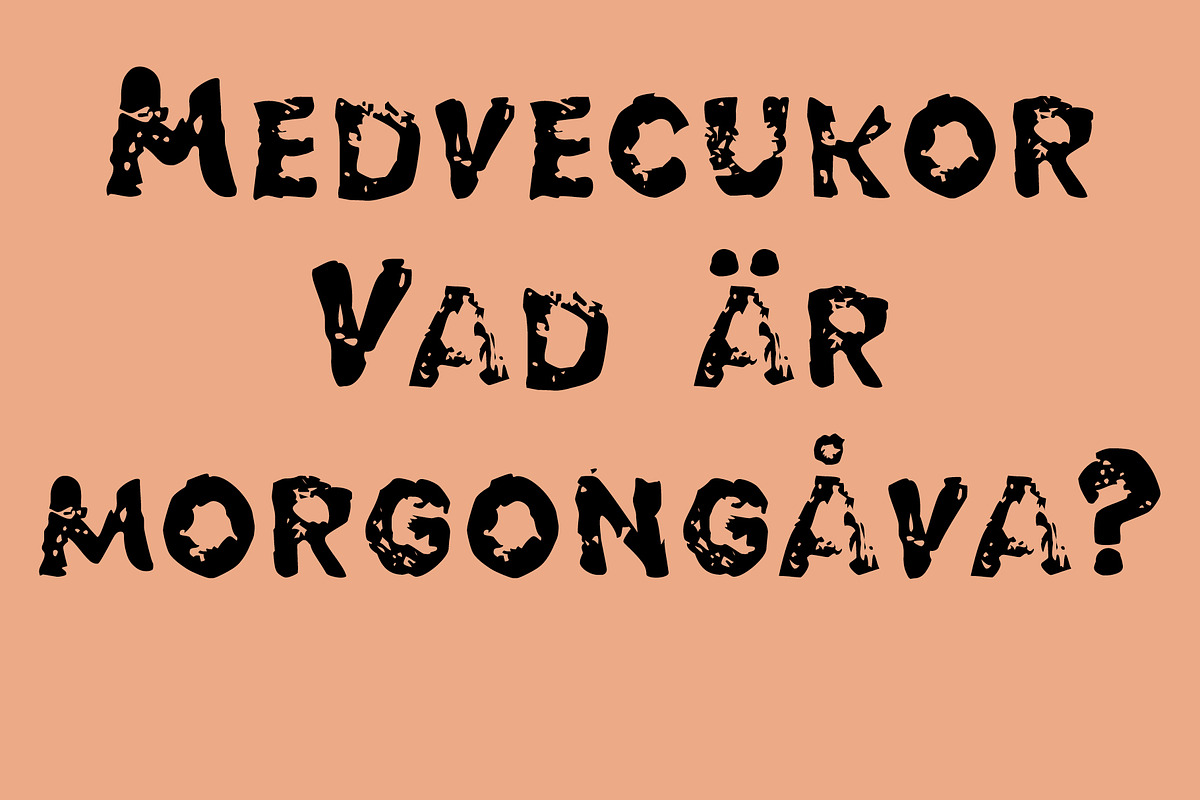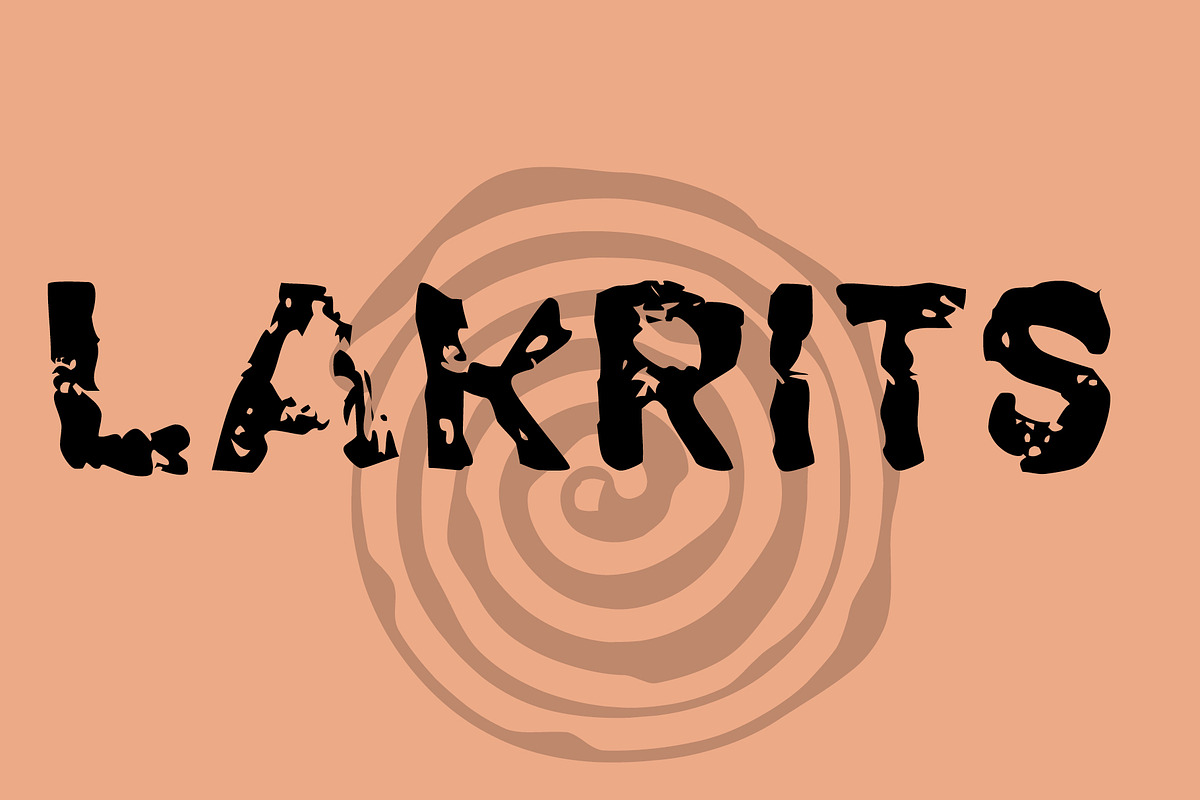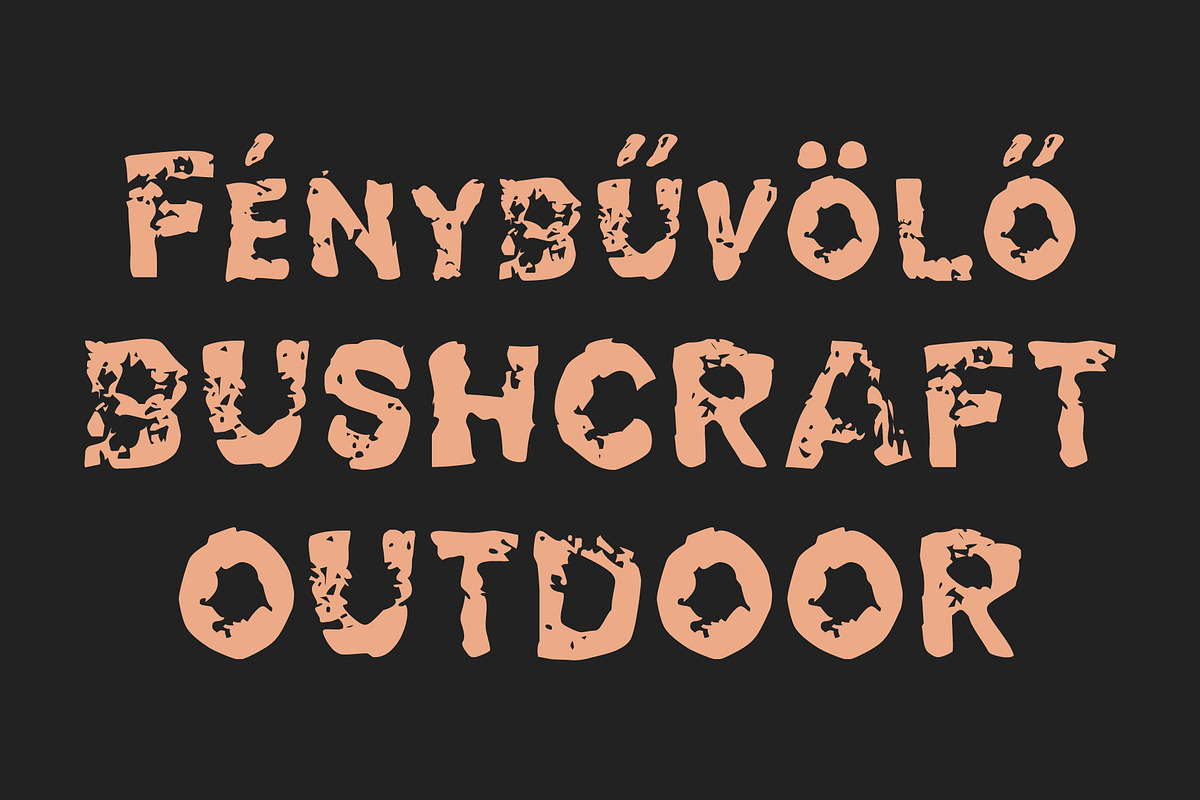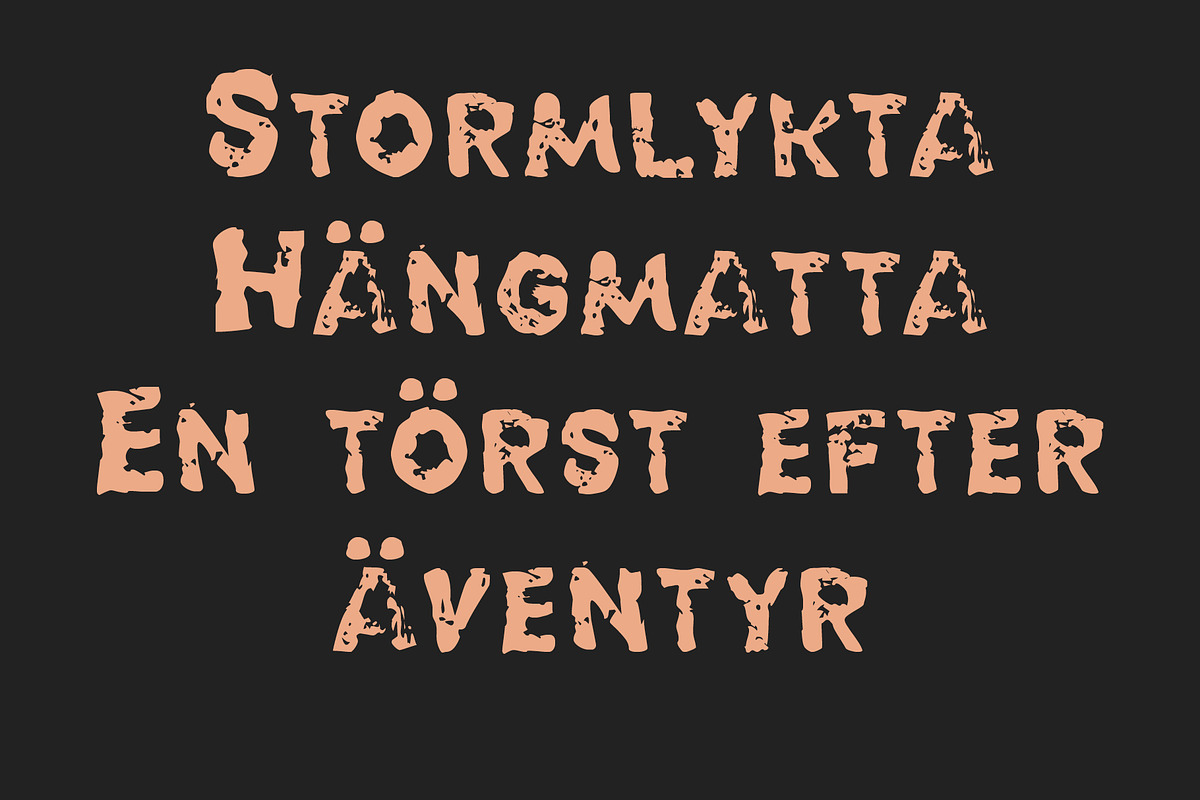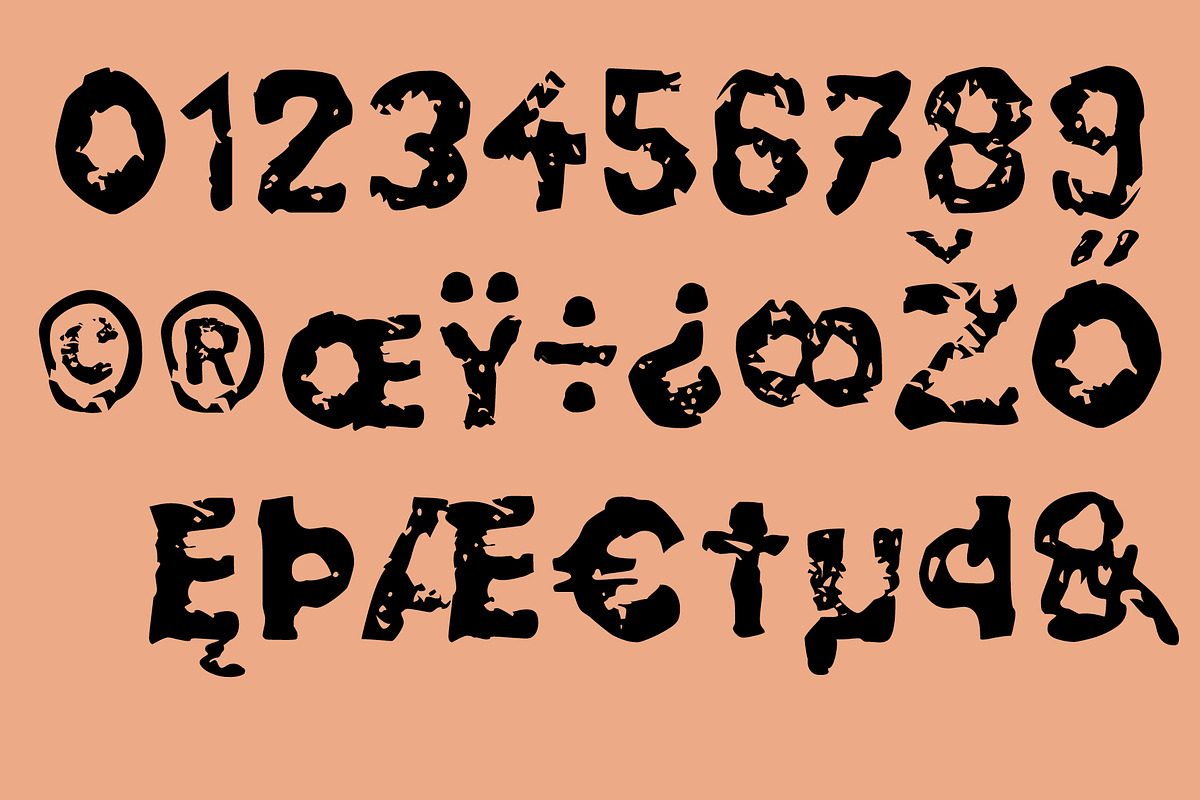
Lakrits
The Lakrits potato print style font is a captivating typeface that captures the essence of both the world of bushcraft and the nostalgia of our childhood. Inspired by the rustic and organic nature of potato printing, this font brings forth a unique and handmade aesthetic that resonates with designers and enthusiasts alike.
The font's name, Lakrits, draws inspiration from the Swedish word for "licorice," which is known for its distinctive and irregular shape. Similarly, the Lakrits font embodies a sense of irregularity and imperfection, lending an authentic and tactile feel to any design it graces.
One of the prominent characteristics of the Lakrits font is its resemblance to the mutilated letters found in stencil duplicated samizdat publications. Samizdat, a term originating from the Soviet era, refers to underground literature clandestinely produced and distributed without official approval. The rugged and distorted letterforms of the Lakrits font evoke a rebellious spirit, paying homage to the resilience and resourcefulness of those who dared to share ideas and information against oppressive regimes.
Beyond its historical connotations, the Lakrits font captures the essence of bushcraft, a skillset rooted in nature and survival. The rough and raw textures of the font emulate the marks left by hand-carved wooden tools and the irregular patterns found in wood grain. This evocative style connects with the primal instincts and deep connection to the natural world that bushcraft represents. The Lakrits font has the ability to transport viewers to a realm where they can almost feel the rough bark of trees and hear the crackling of a campfire.
With its nostalgic appeal, the Lakrits typeface also taps into the world of our childhood. It harks back to the days of crafting when we eagerly dipped cut potatoes into paint and pressed them onto paper to create whimsical designs. The font's irregular and playful letterforms bring forth a sense of innocence and creativity, rekindling memories of carefree days and imaginative adventures.
Designers who embrace the Lakrits font are drawn to its ability to infuse their work with a rustic charm and a touch of rebellion. Whether used in branding, packaging, or editorial design, it adds a unique and memorable element that sets the design apart from the ordinary. Its distinctive appearance captures attention and invites viewers to explore the story behind the typography, making it an ideal choice for projects that seek to evoke emotion and create a lasting impact.
In a world where sleek and standardized digital fonts often dominate, the Lakrits potato print style font serves as a refreshing departure. It celebrates the imperfect beauty of handmade creations, connects us to history and nature, and stirs the nostalgic spirit of childhood wonder. Through its evocative style, the Lakrits font inspires designers to embrace experimentation and break free from the constraints of convention.